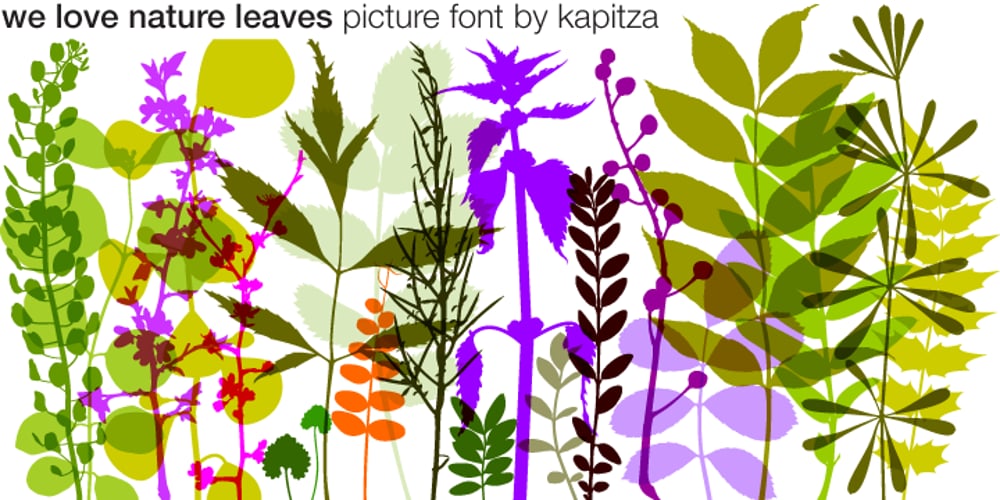
We Love Nature Leaves Font Family was designed by published by kapitza. We Love Nature Leaves contains 1 styles and family package options. We Love Nature Leaves is an extensive and versatile collection of foliage illustrations. This font consists of 52 highly detailed drawings of twigs and leaves which can be used on their own or in combination with the other illustrations in the ‘We Love Nature’ font collection. All illustrations are drawn by hand and of the highest quality.